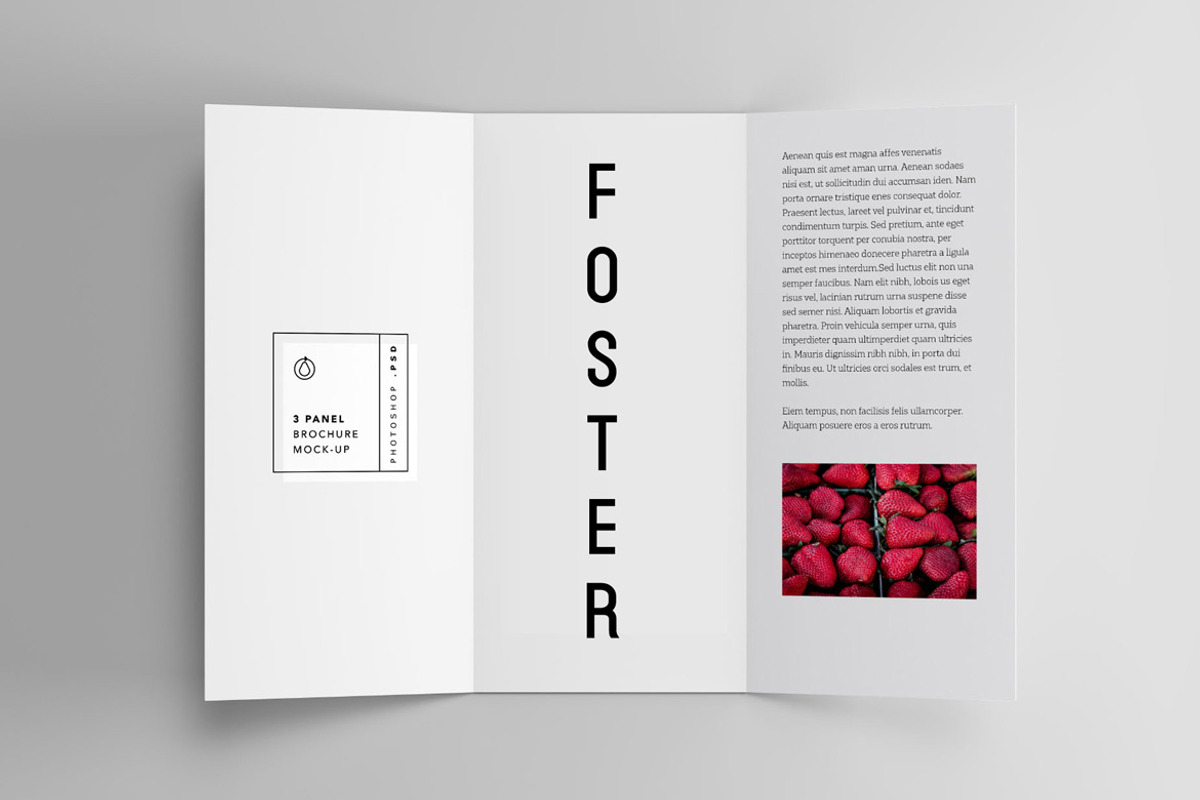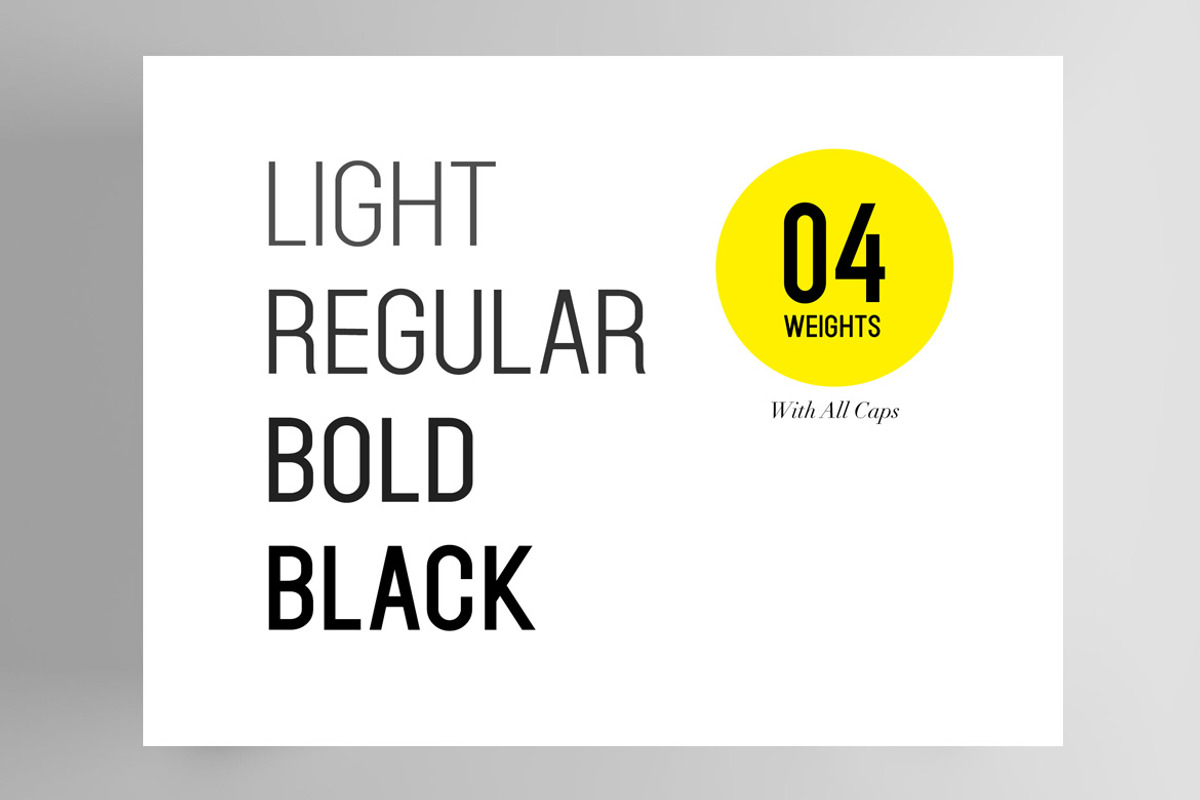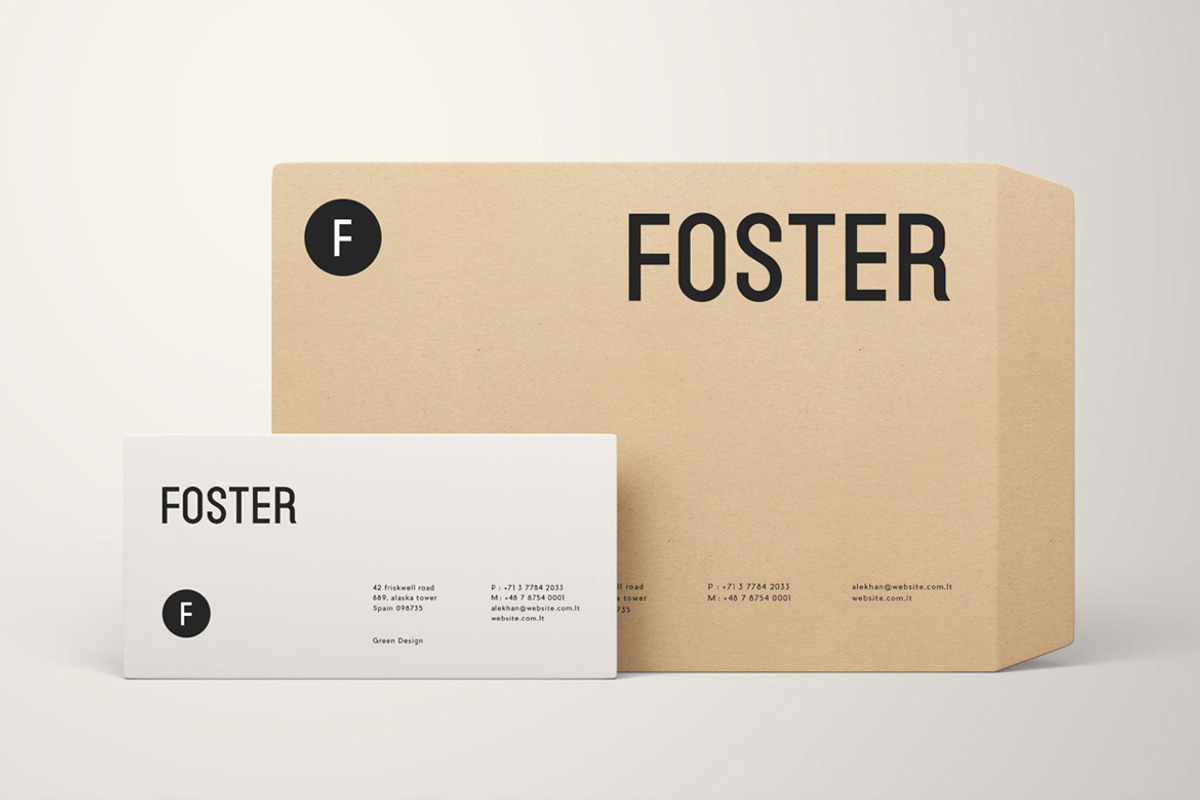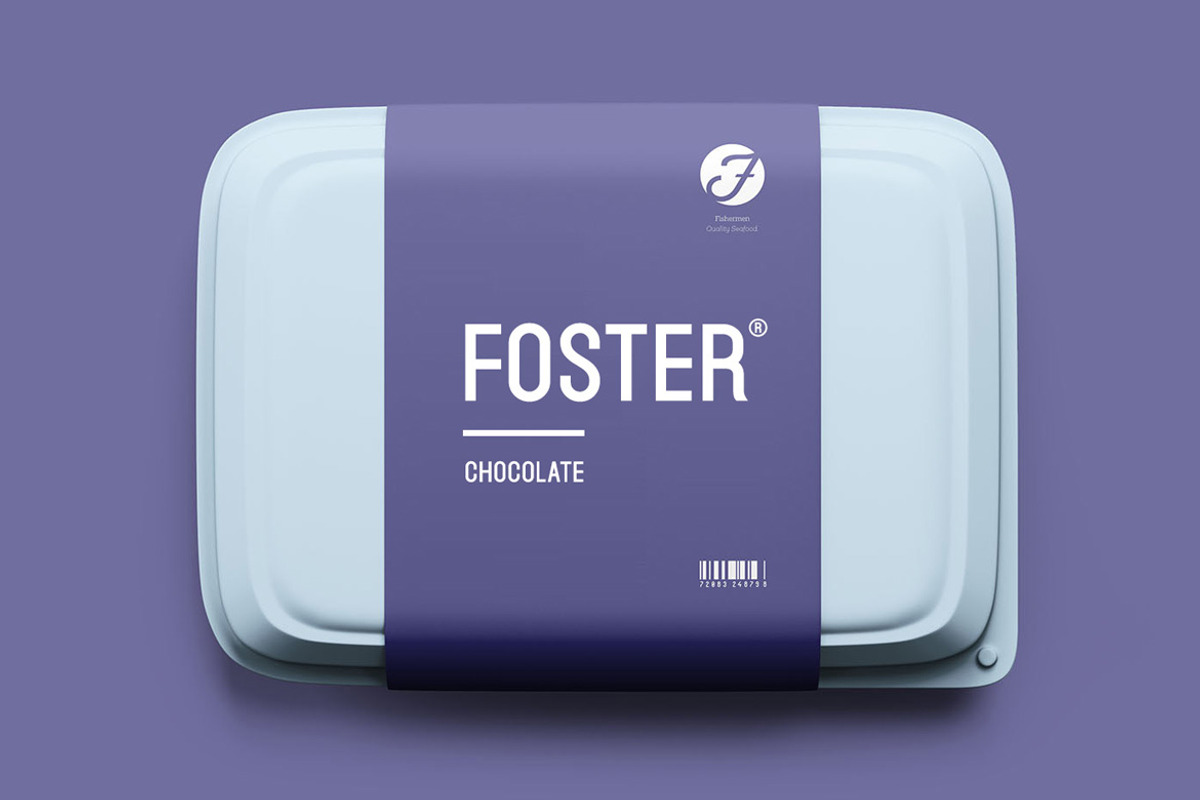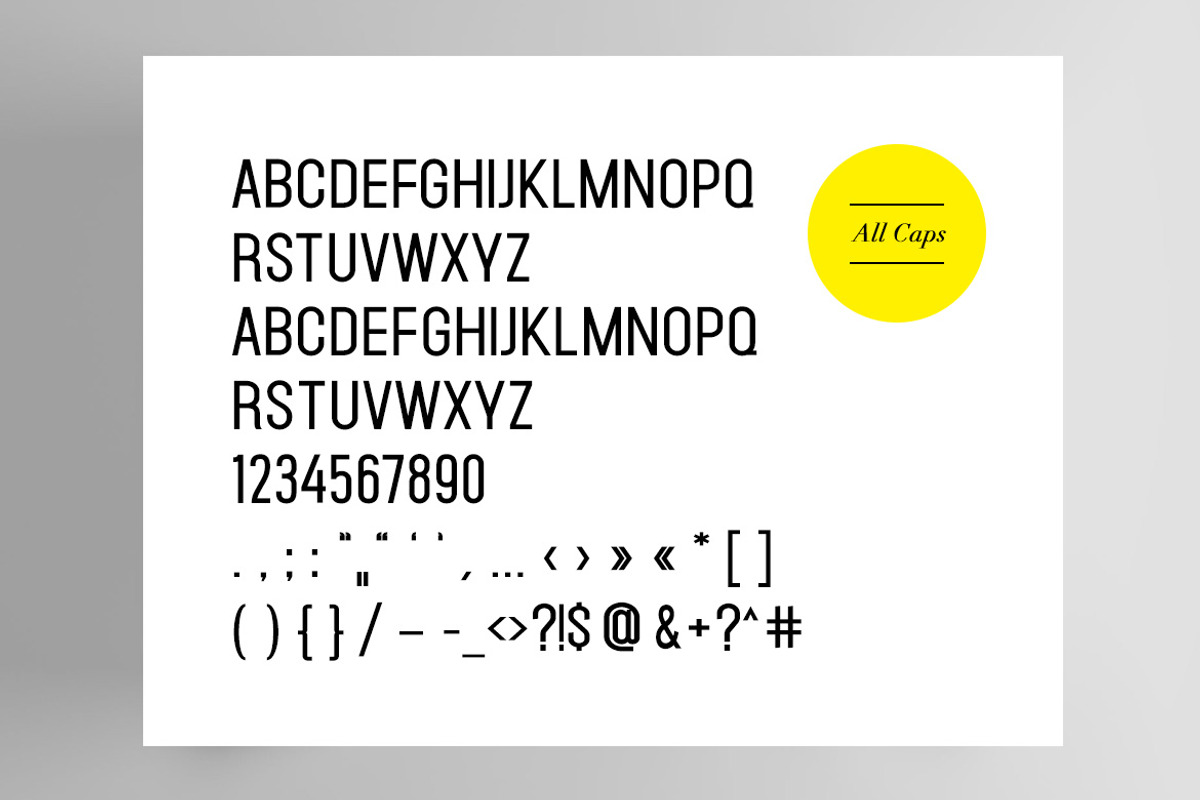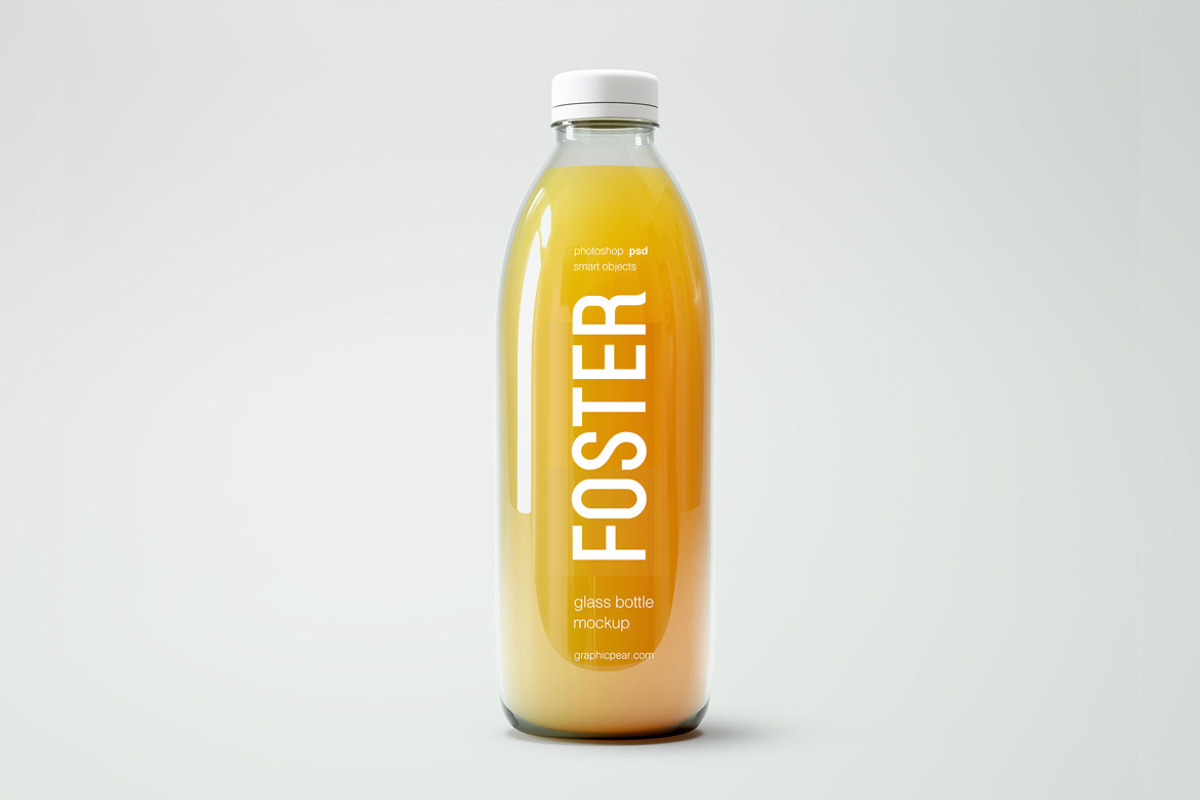
FOSTER - Amazing Display Typeface
FOSTER is the modern typeface for presenting headlines, big text, branding, logotypes & display usage. The typeface is perfect for creating outstanding logos and promotional content and marketing graphics that can really grab attention from your visitors. Please see the examples shown above to get an idea about the capability of this typeface.
FOSTER comes with 4 weights (Light / Regular / Bold / Black). This typeface is all-caps by default. The pack contains OTF, TTF and Web Fonts (all EOT, SVG, TTF, WOFF, WOFF2 everything is included).